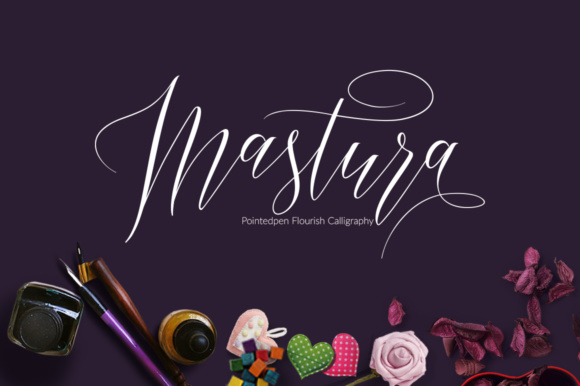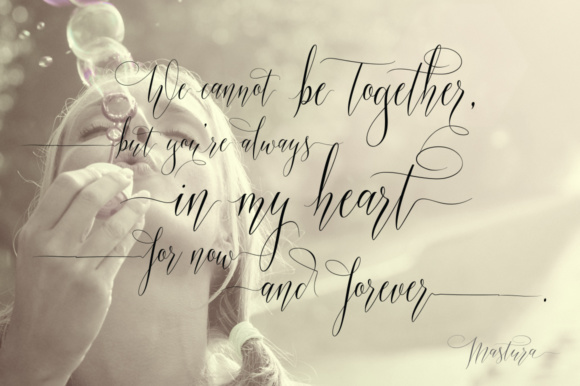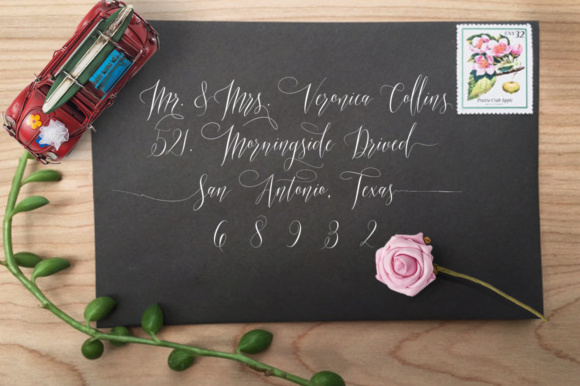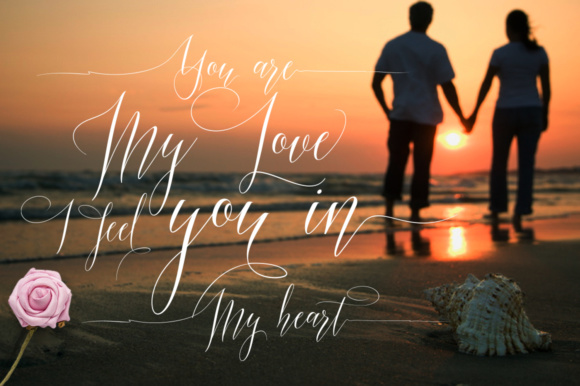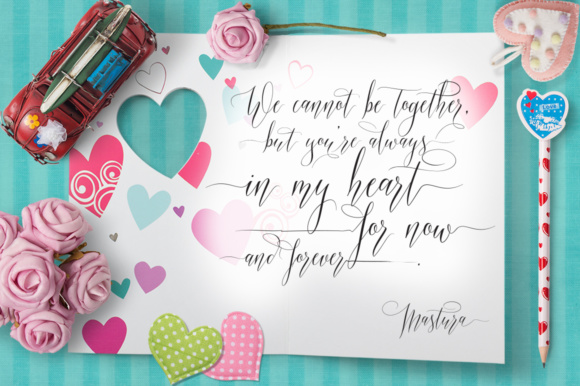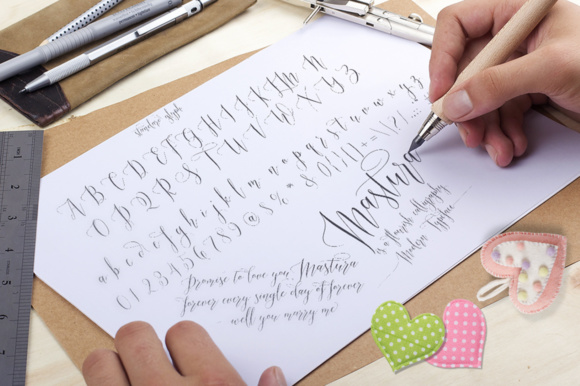
Mastura Font
About Mastura Font
Mastura is a beautifully flourished script font, ideal for use in various title and display projects. This font has smooth lines, pointed-edged pull pens, and is a stunning blend of classic and modern elegance.